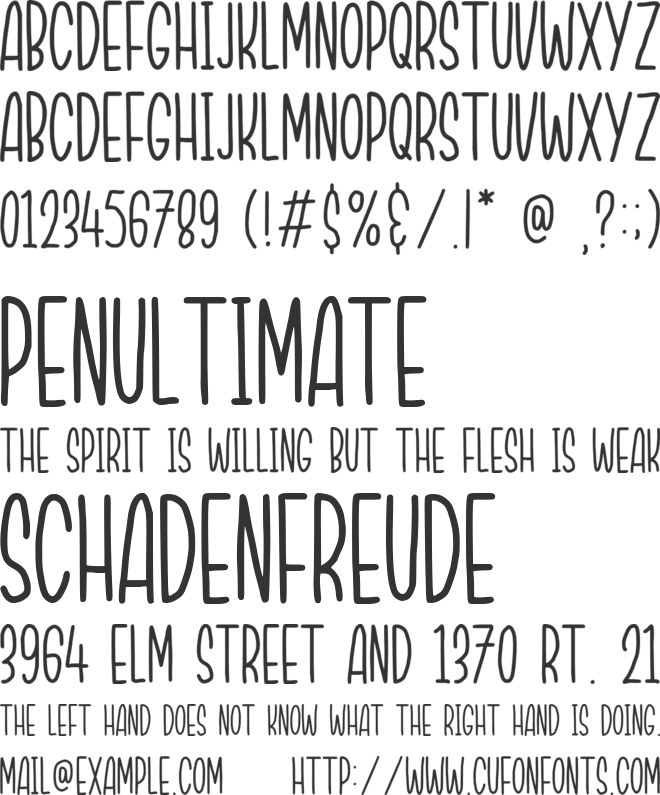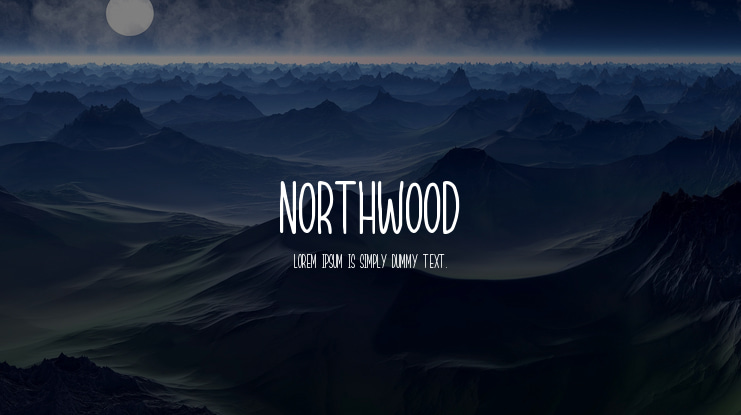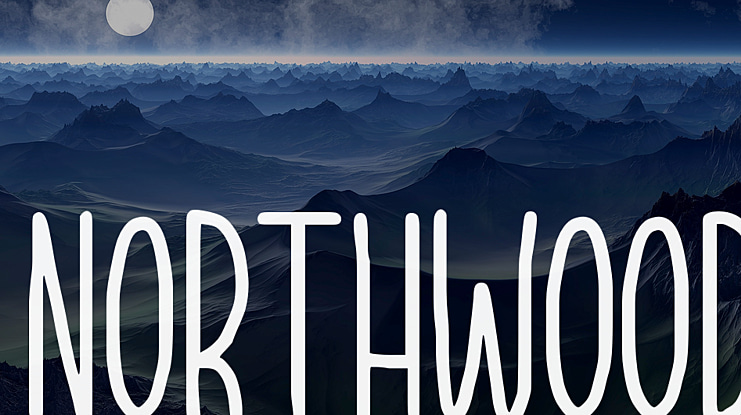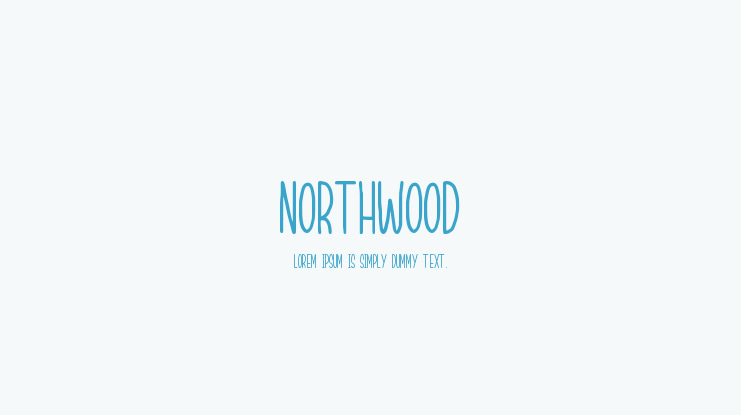
NORTHWOOD Font
Proudly Present, NORTHWOOD Font.
NORTHWOOD is A QUIRKY HANDWRITTEN FONT.
NORTHWOOD is perfect for product packaging, branding project, megazine, social media, wedding, or just used to express words above the background.